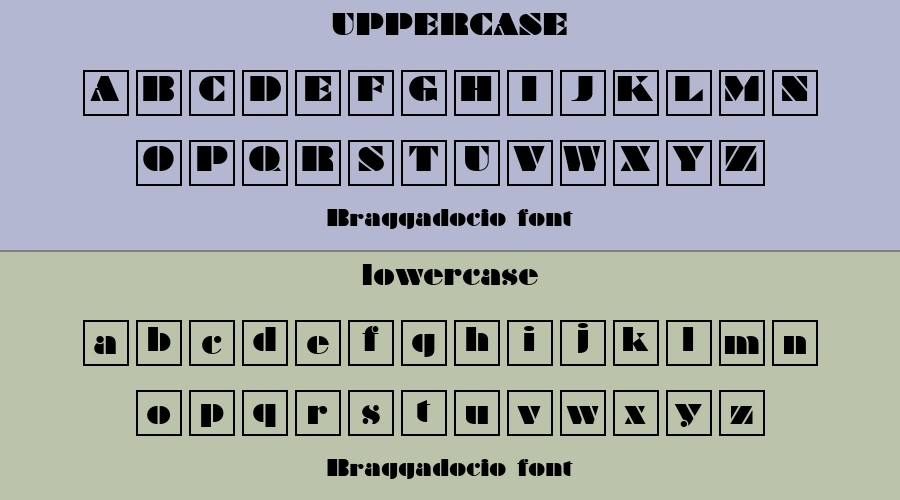
About Braggadocio font
Braggadocio font stands out for its distinctive combination of rounded corners and technical accuracy. Ideal for engineering specs, it provides the accuracy and market relevance that professional projects demand. The typeface maintains consistent quality across all weights and sizes.
Key features include refined sharp terminals and practical oldstyle figures, enhancing typographic expression. In hero imagery applications, Braggadocio font demonstrates exceptional cross-platform compatibility. The terminal style and cultural context contribute to its distinctive character and professional appeal.